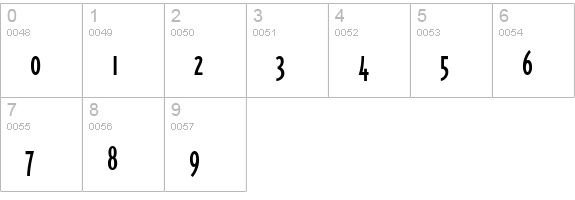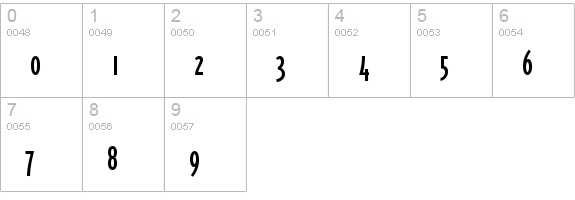
TriplexCondRegular Font Details
TriplexCondRegular is a versatile and modern font that exudes elegance and sophistication. Its sleek and condensed design makes it a perfect choice for various design projects, from branding and advertising to editorial layouts and web design. This exquisite font features a harmonious balance between its clean lines and subtle curves, creating a visually appealing and highly legible typeface. Its condensed nature allows for efficient use of space, making it ideal for projects that require a compact layout without compromising on style. TriplexCondRegular is equipped with a comprehensive set of characters, including uppercase and lowercase letters, numerals, punctuation marks, and a variety of special characters. This extensive character set ensures that you have all the tools you need to bring your creative vision to life. One of the standout features of TriplexCondRegular is that it is freely available to download at FontsMarket.com. This means that you can easily access and utilize this stunning font in your projects without any cost or restrictions. Whether you are a professional designer or a hobbyist, having access to high-quality fonts like TriplexCondRegular can greatly enhance the visual impact of your work. Overall, TriplexCondRegular is a font that combines style, versatility, and accessibility. Its sleek and condensed design, along with its extensive character set, makes it a valuable asset for any design project. And with its availability as a free download at FontsMarket.com, there is no reason not to add this exceptional font to your collection.